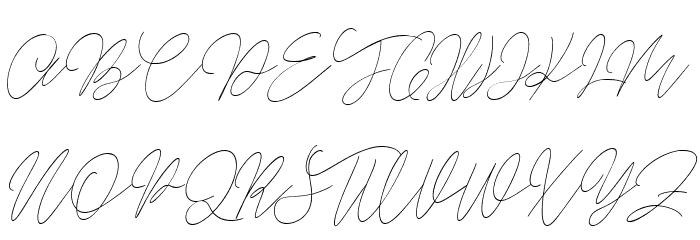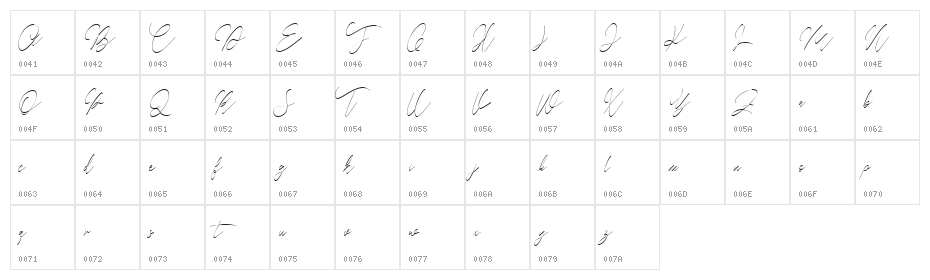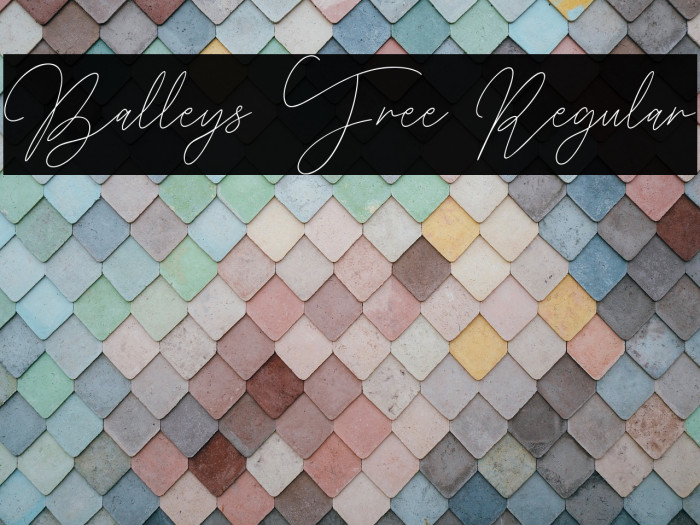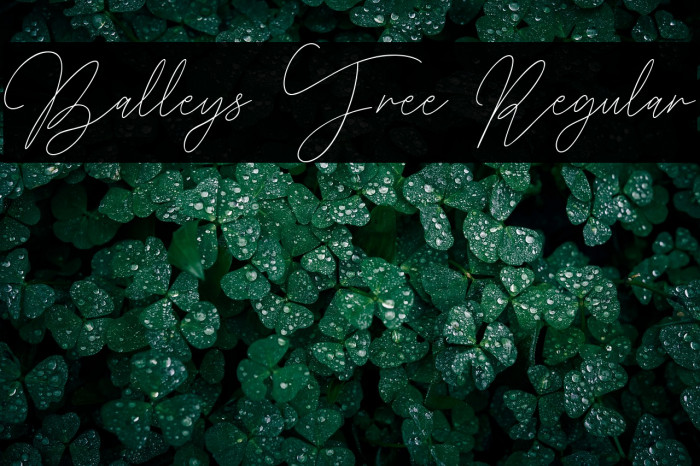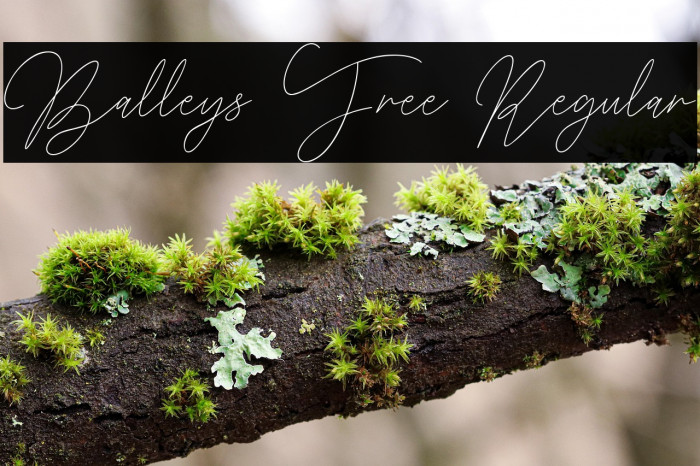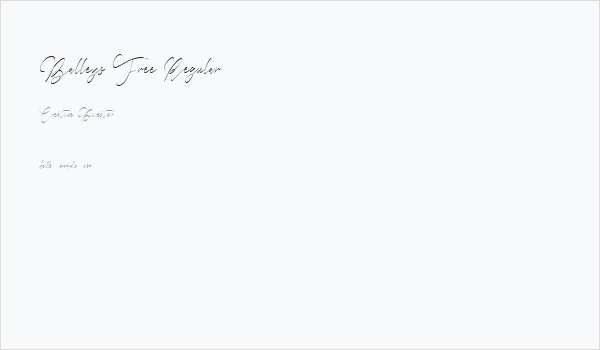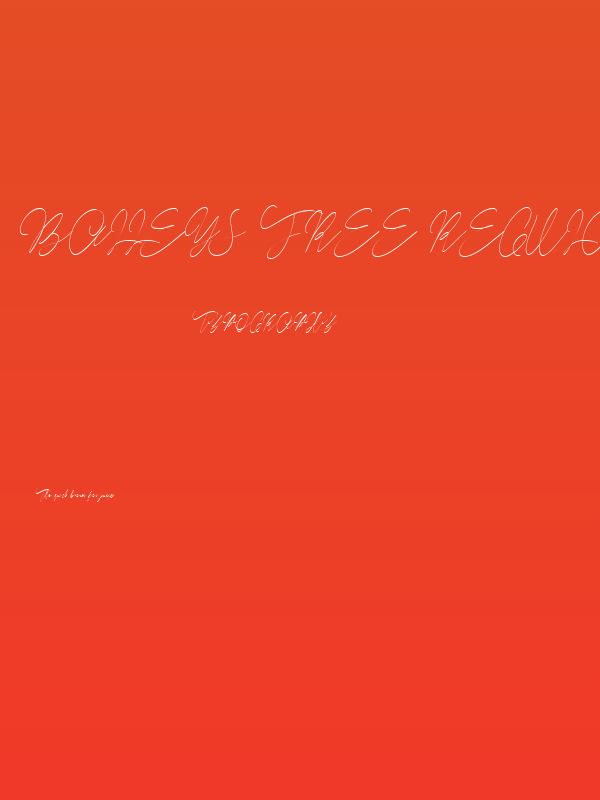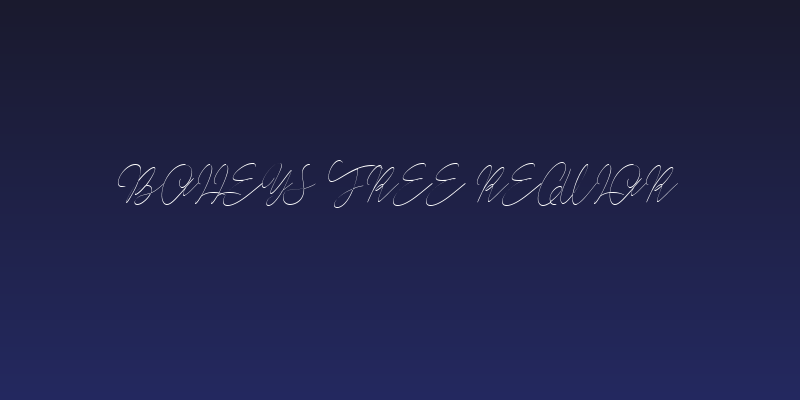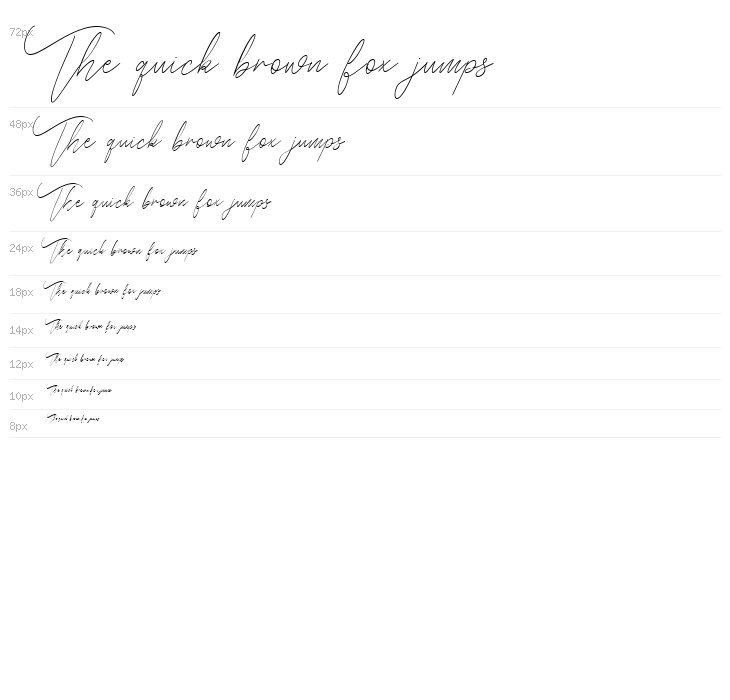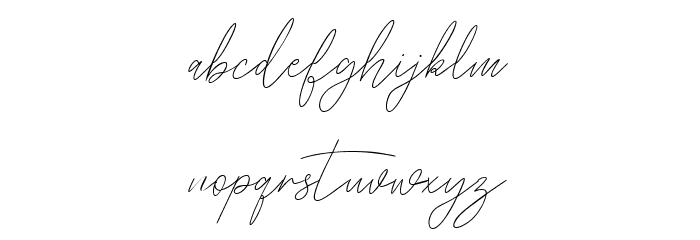
Balleys Free Regular Font
Balleys Free Regular Description
This elegant script font features flowing, interconnected letters that mimic the fluidity of handwriting. The characters are delicately crafted with thin strokes, giving it a sophisticated and airy appearance. The uppercase letters are ornate and slightly larger than the lowercase, which are more restrained but equally graceful. The font maintains a consistent slant throughout, enhancing its cursive style. The numerals and special characters are designed to match the overall aesthetic, ensuring a cohesive look across all text. This font is ideal for projects that require a touch of elegance and personal flair.
| Proposed Projects | Wedding invitations, elegant branding, personal stationery, and artistic quotes. |